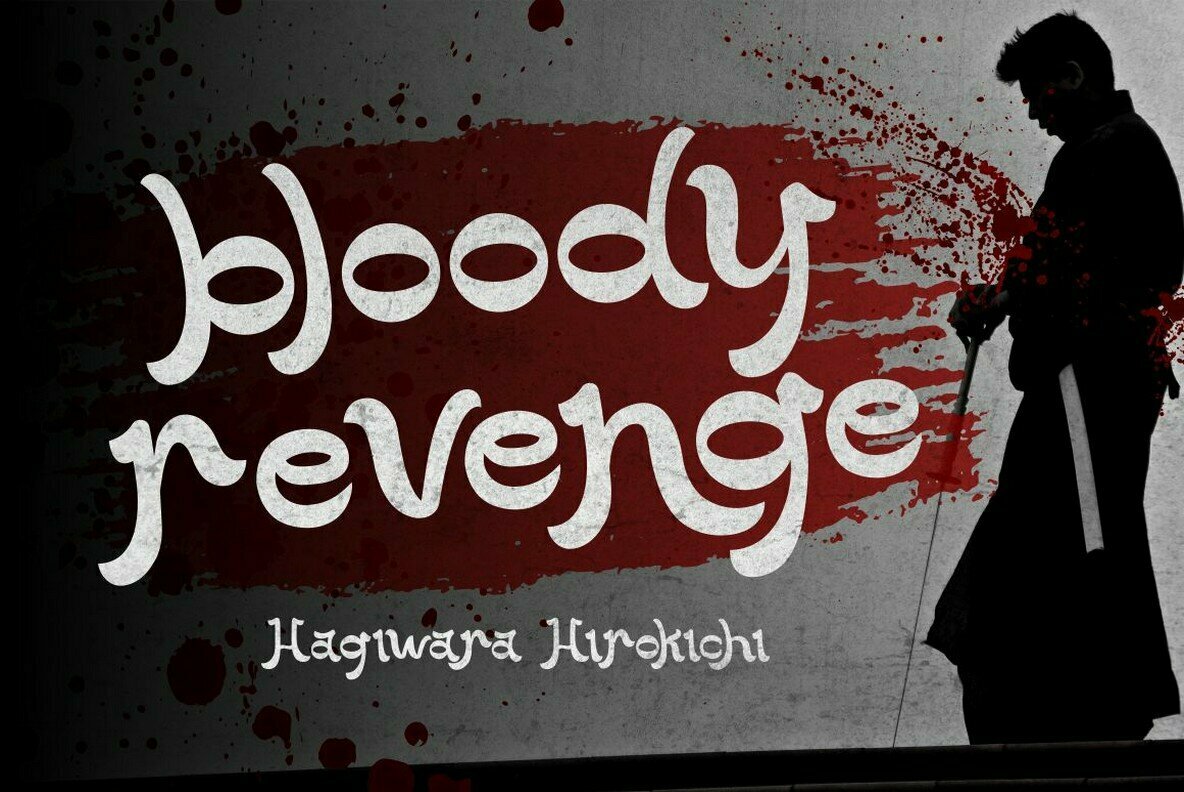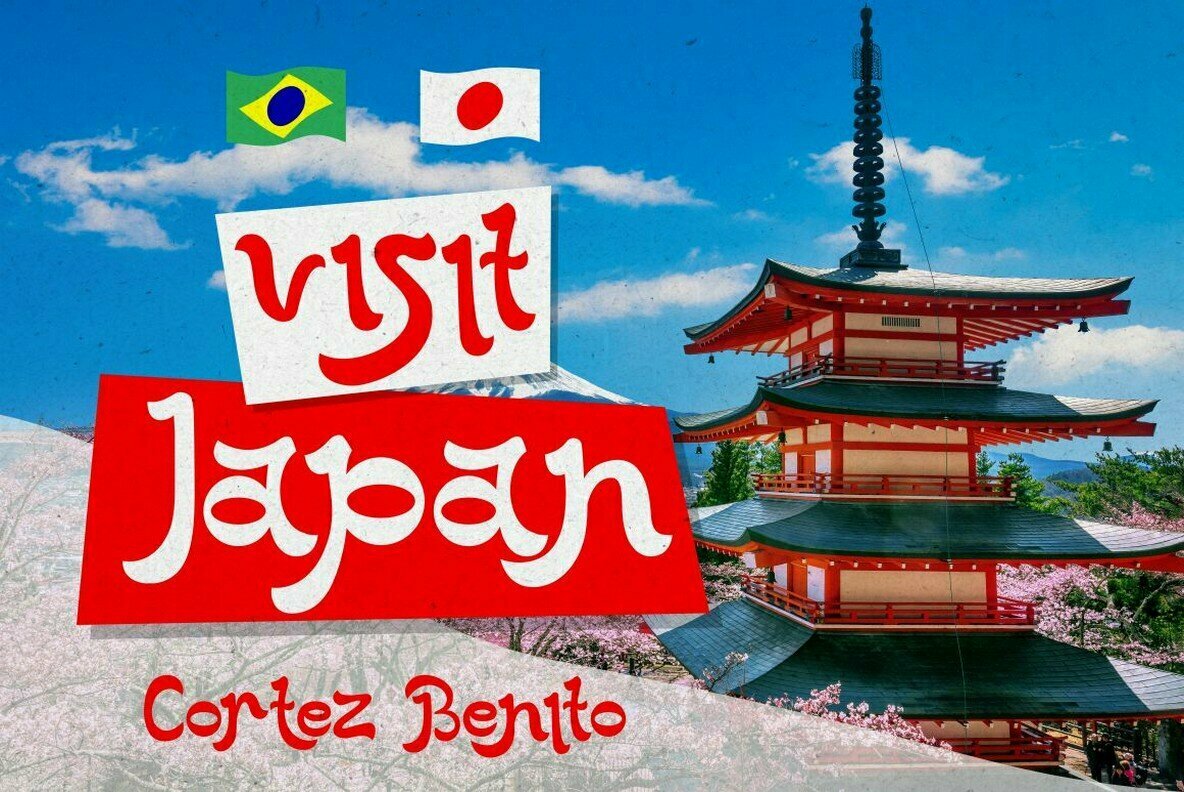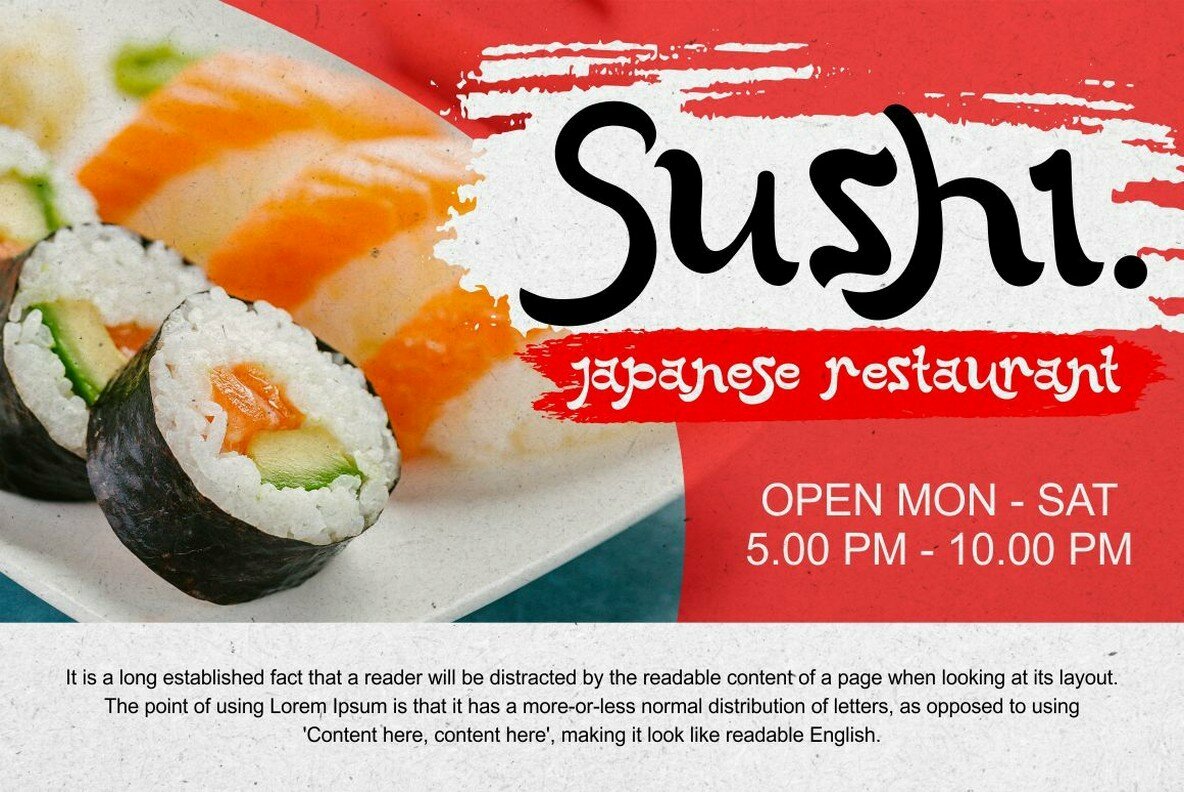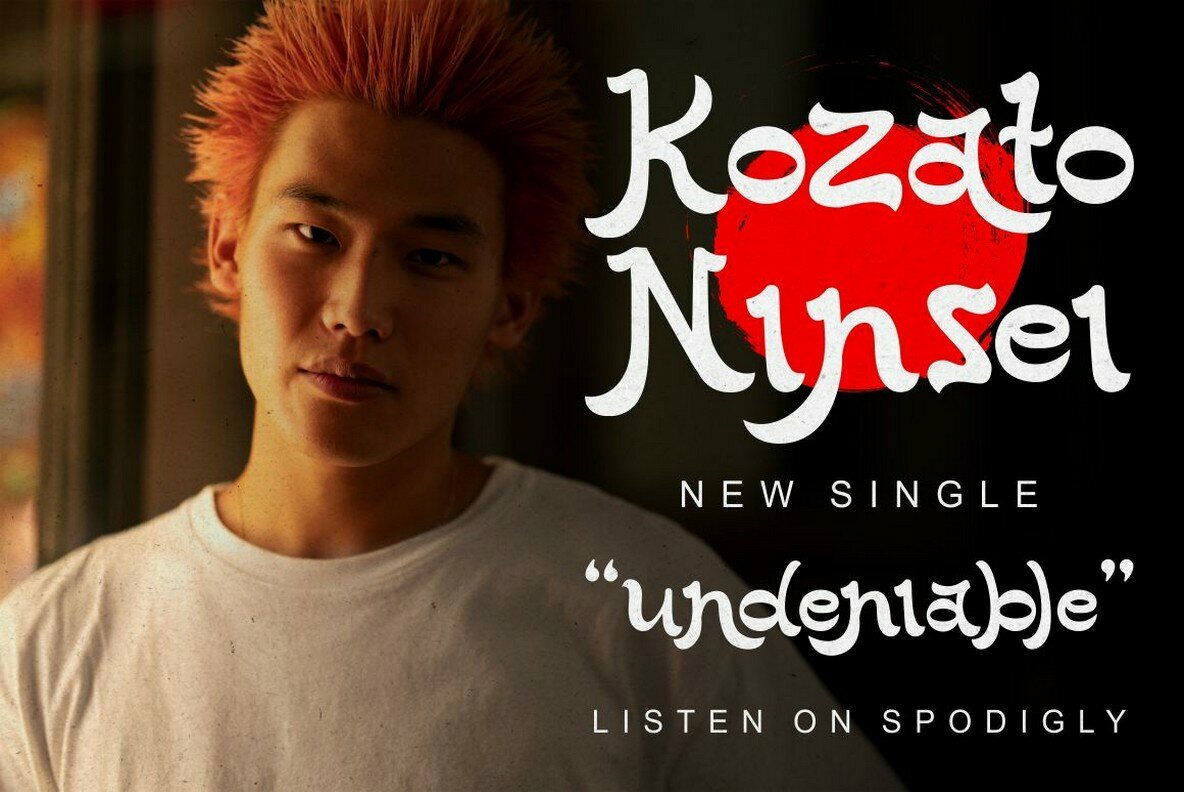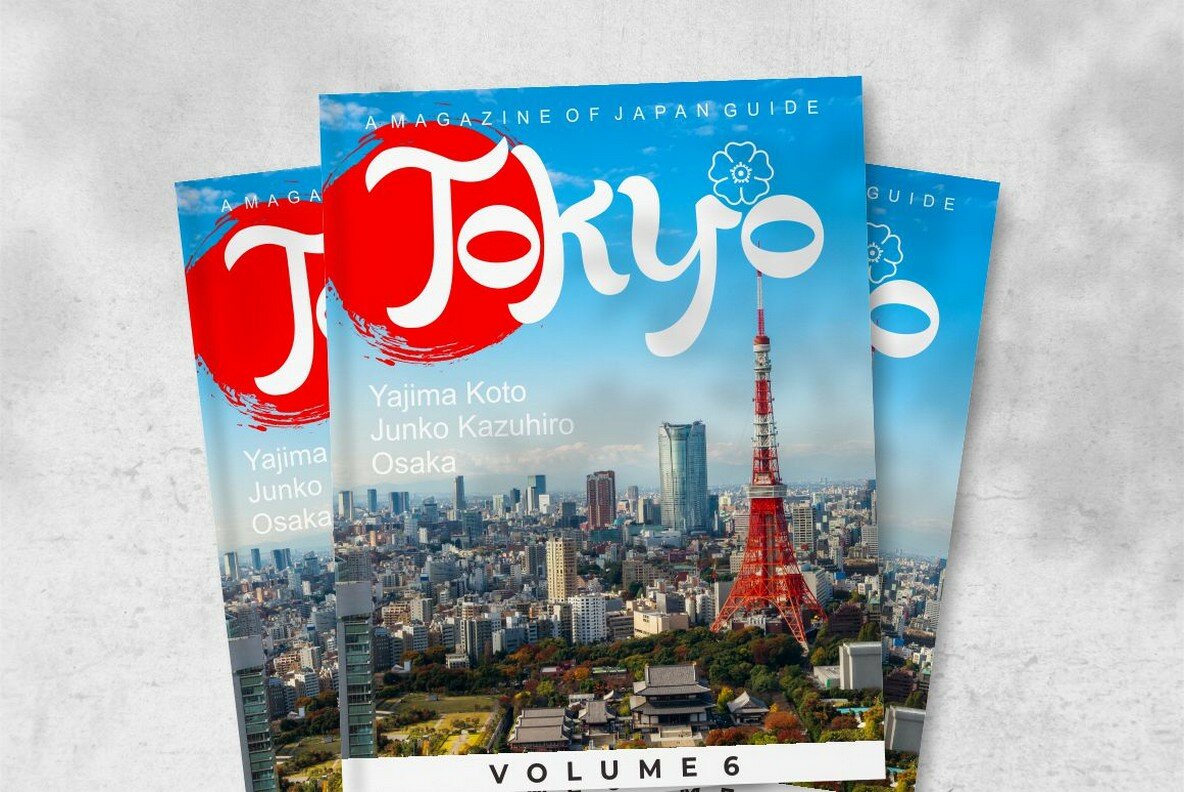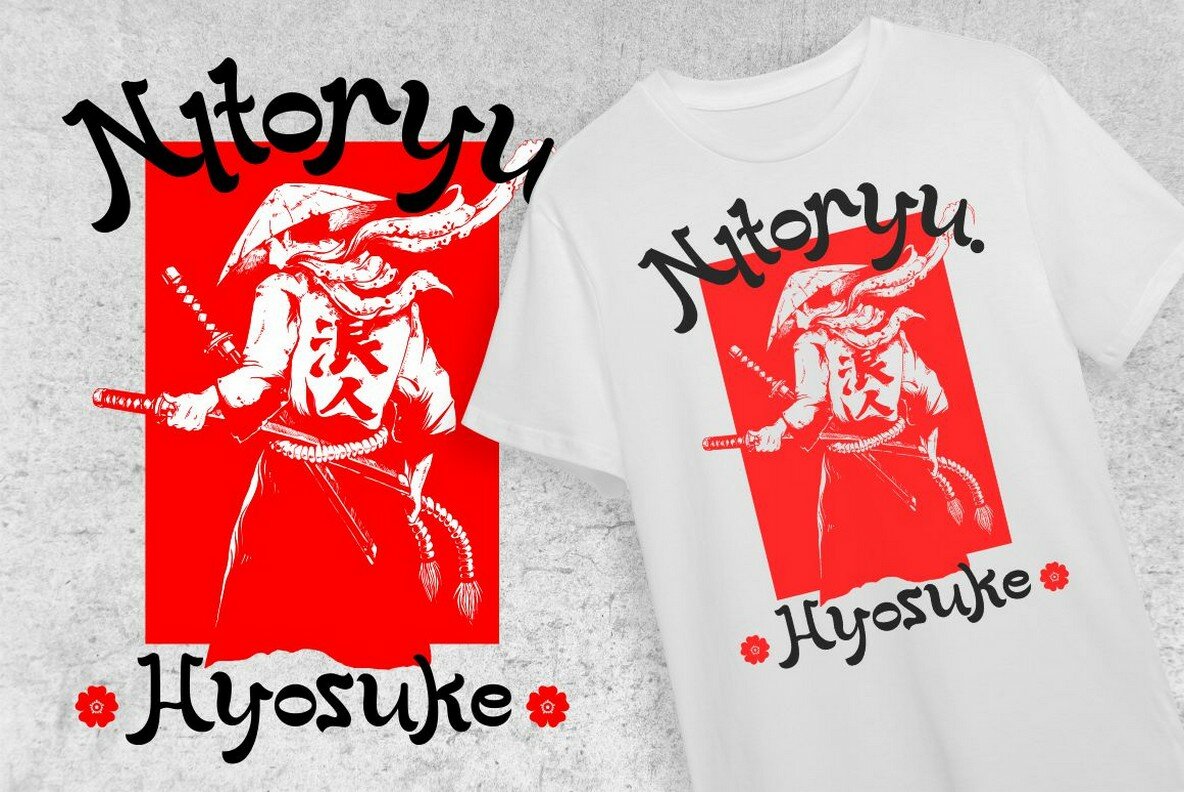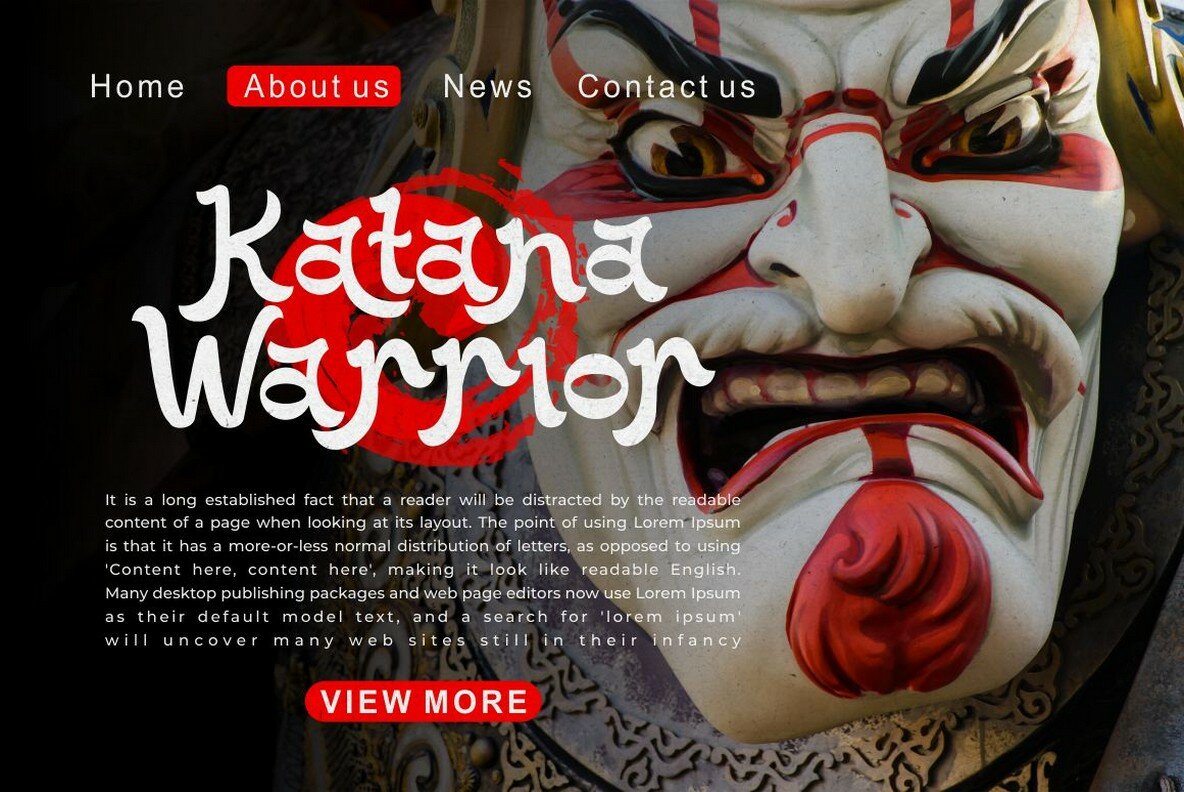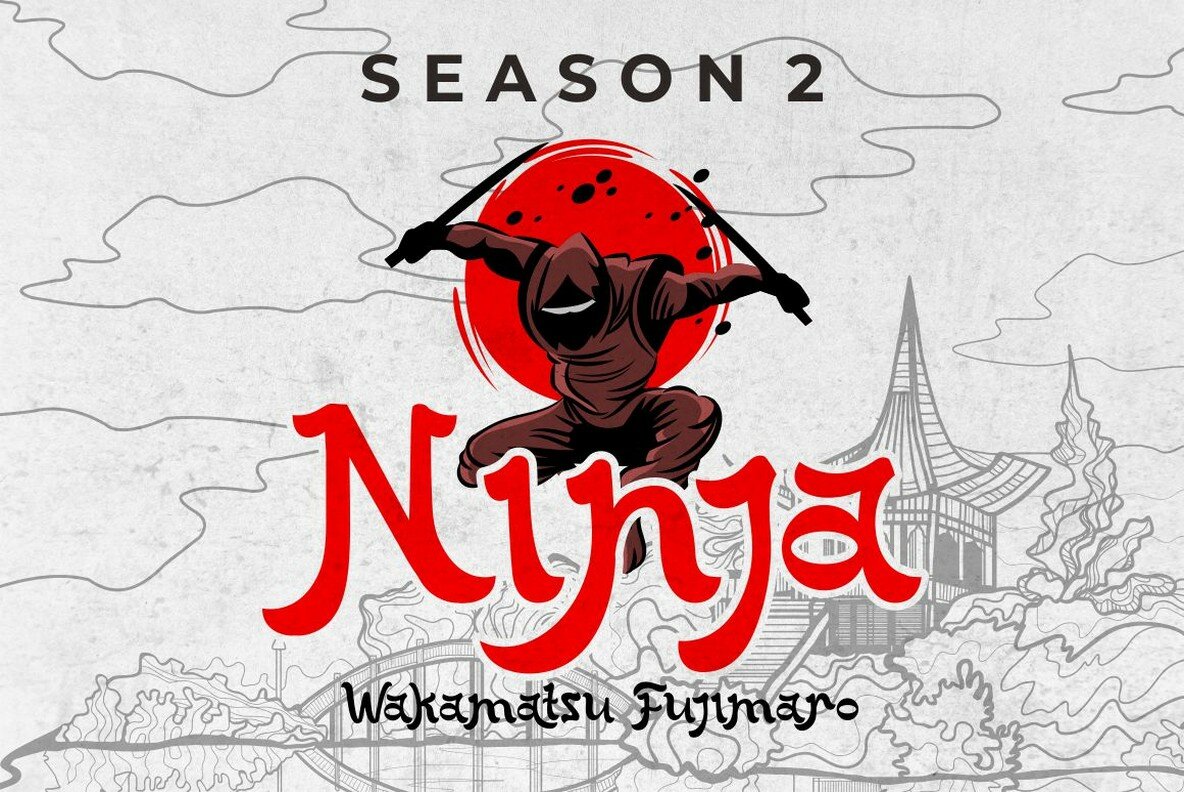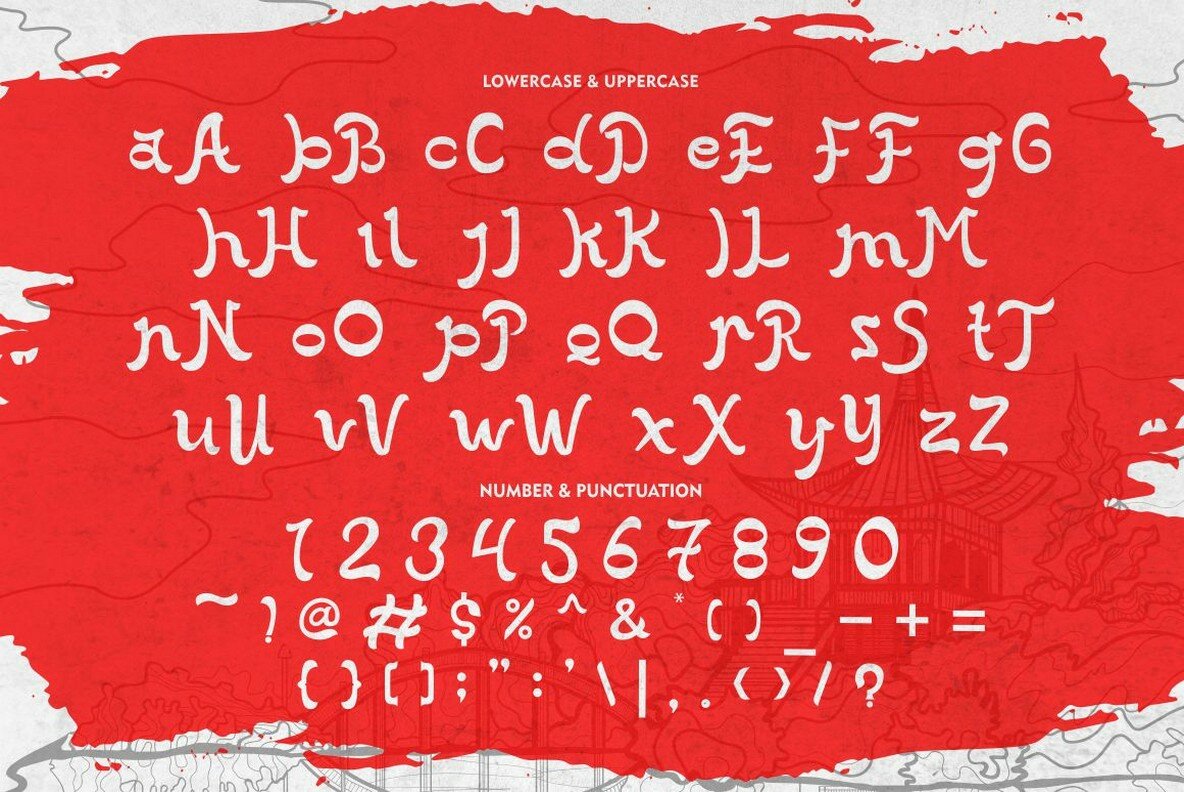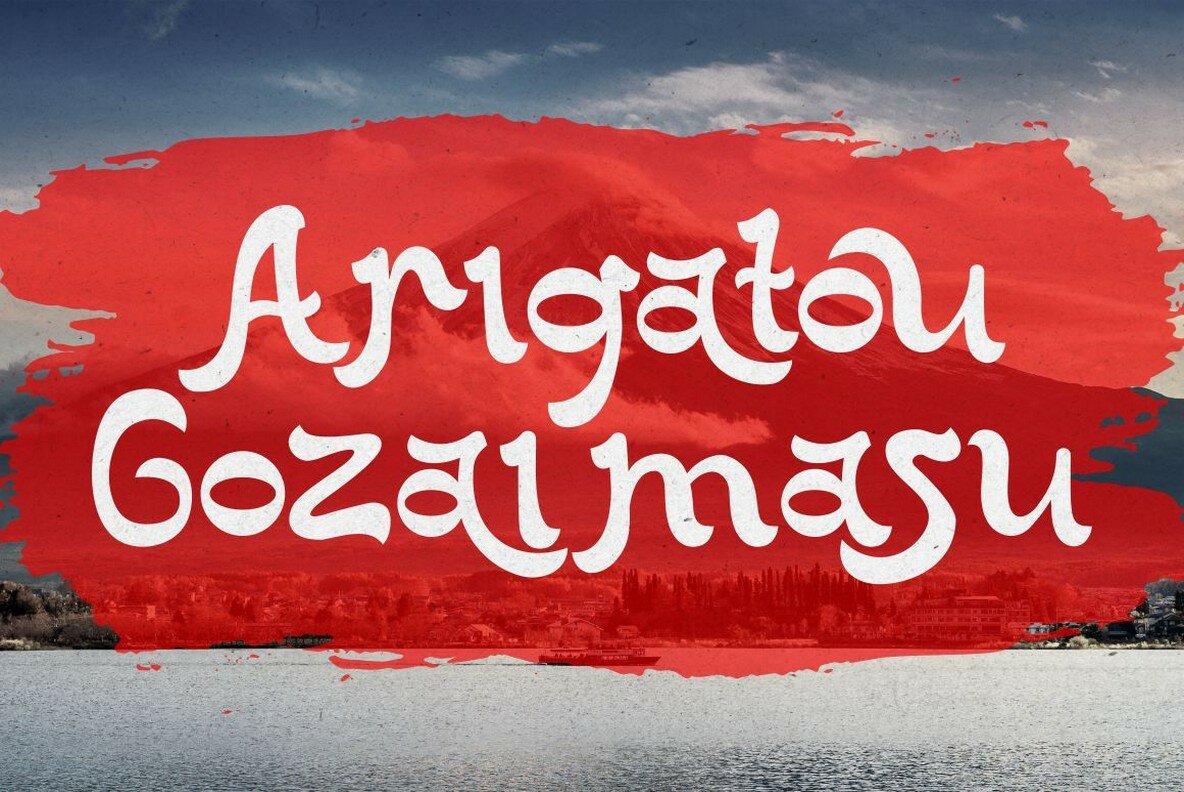
Takatsuki Style Font
Takatsuki Style
Takatsuki Style - Japanese Display Font. Takatsuki Style combine ethnic and cultural elements in each of the glyphs. Takatsuki Style font is suitable for those of you who like japanese culture, besides this font is also suitable for those of you who have a japanese restaurant, japanese clothing brand, japanese arts, and business purpose related with japanese culture
The alternative characters were divided into several Open Type features such as Swash, Stylistic Sets, Stylistic Alternates, Contextual Alternates, and Ligature. The Open Type features can be accessed by using Open Type savvy programs such as Adobe Illustrator, Adobe InDesign, Adobe Photoshop Corel Draw X version, And Microsoft Word. This font is also support multi language.